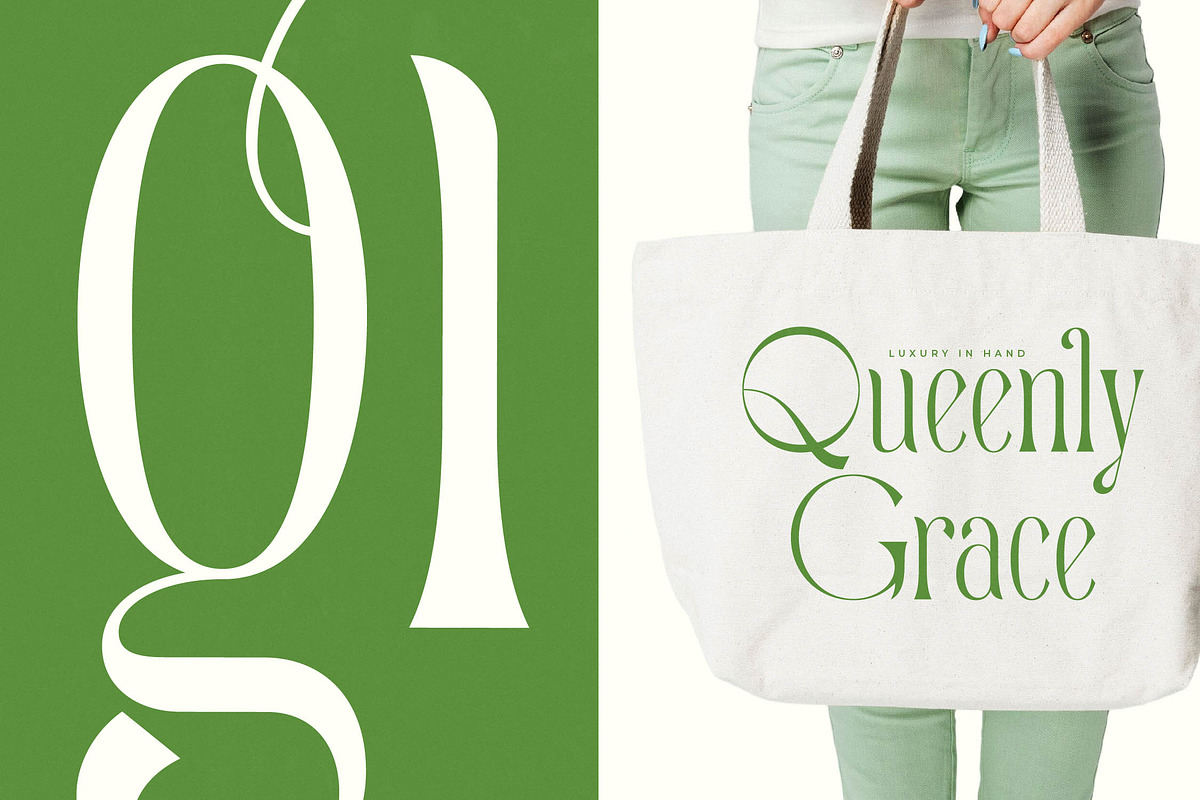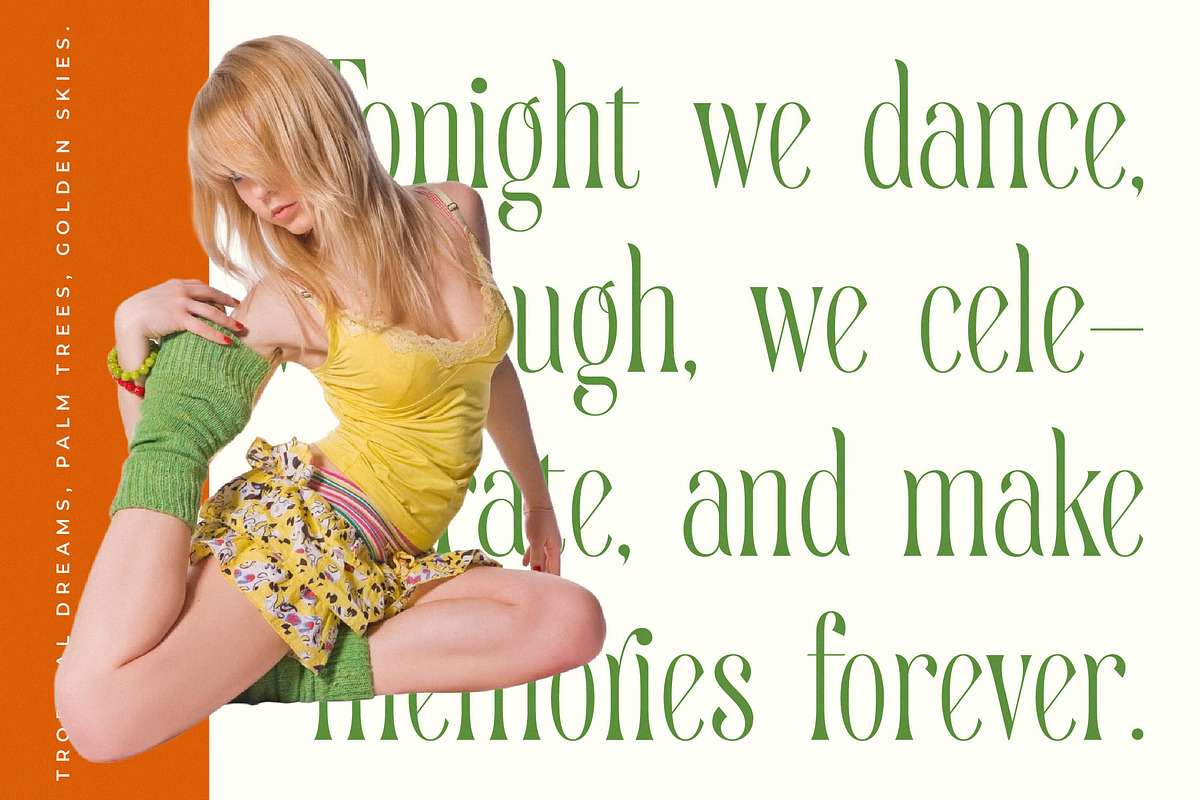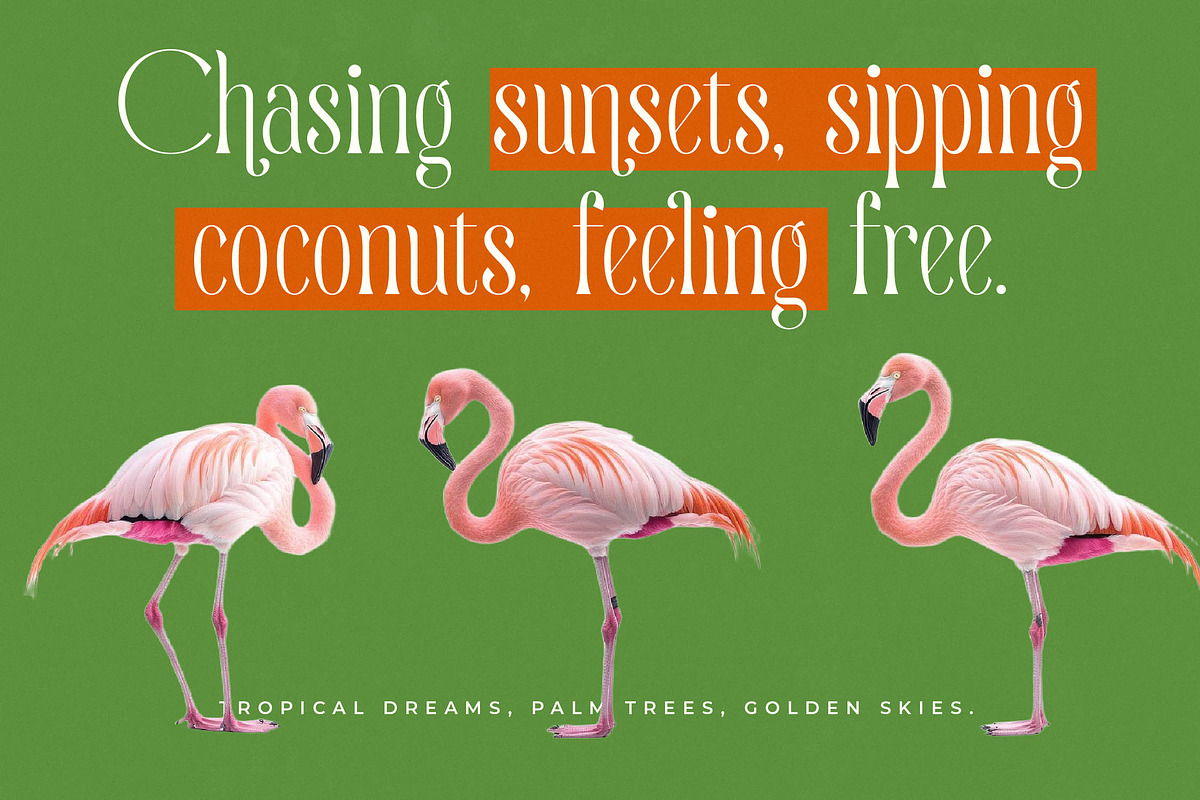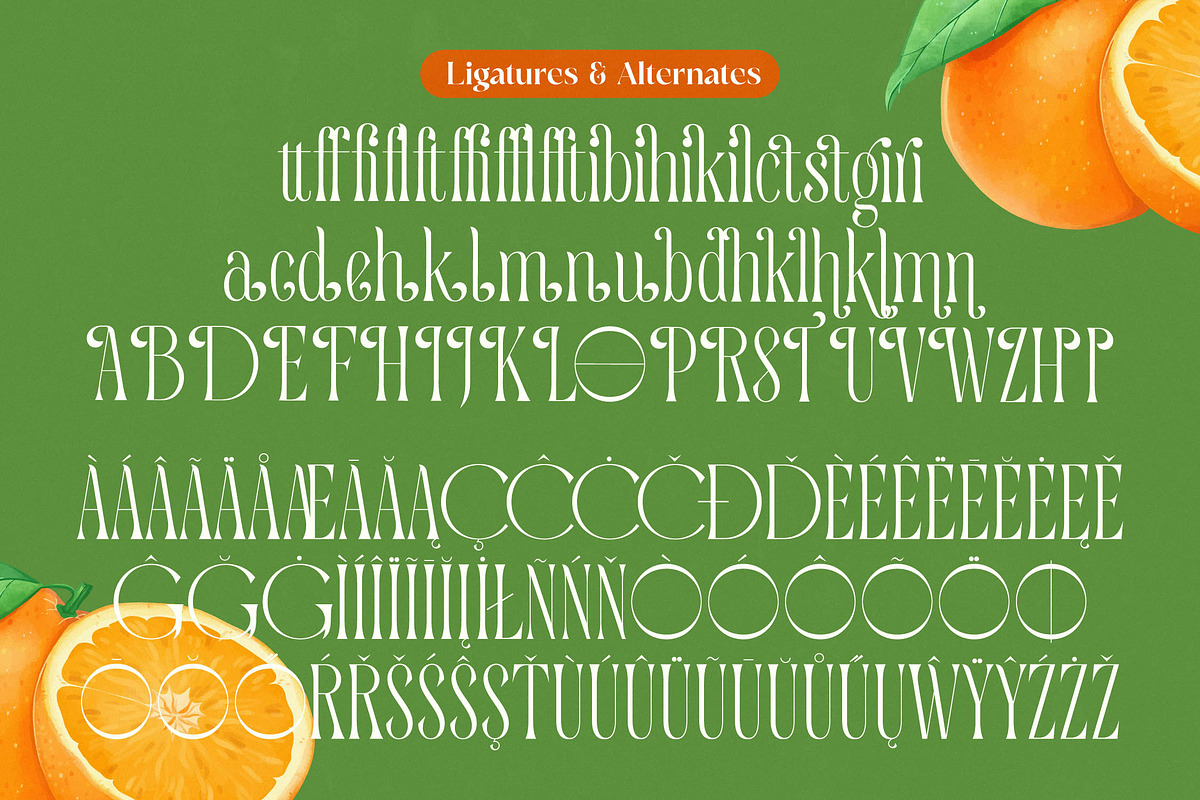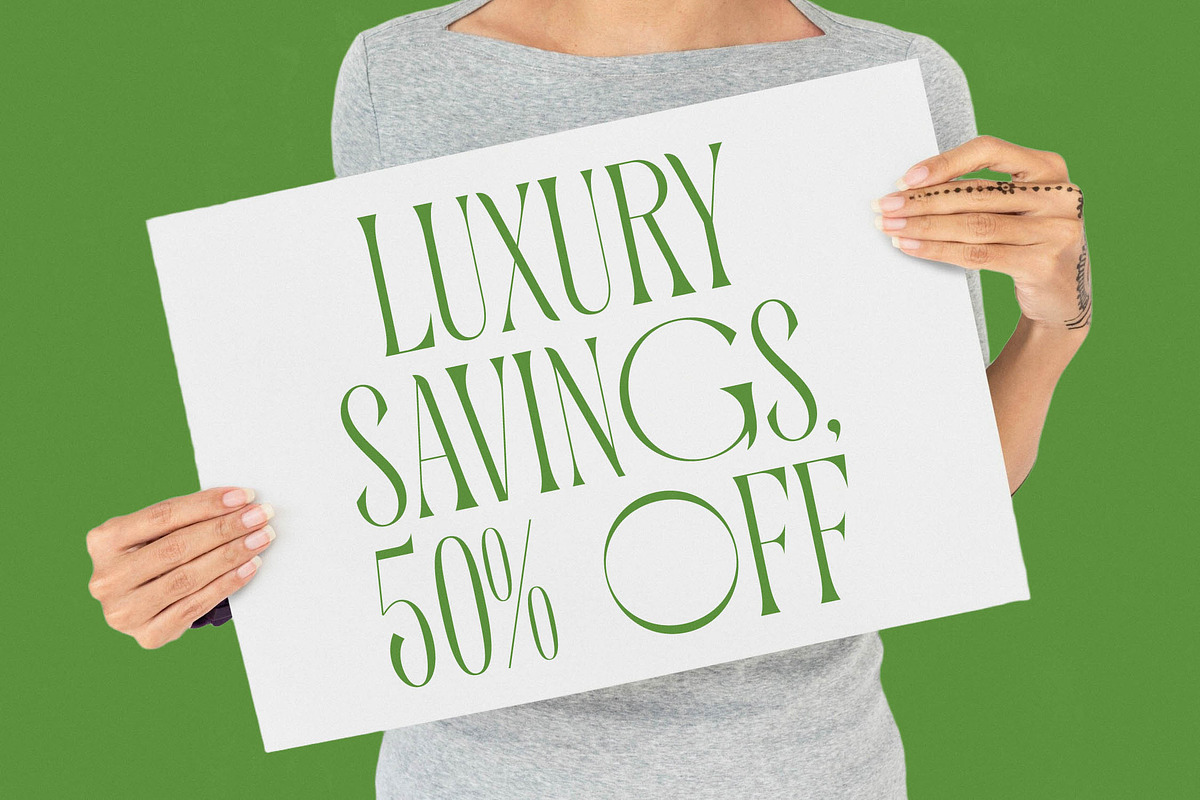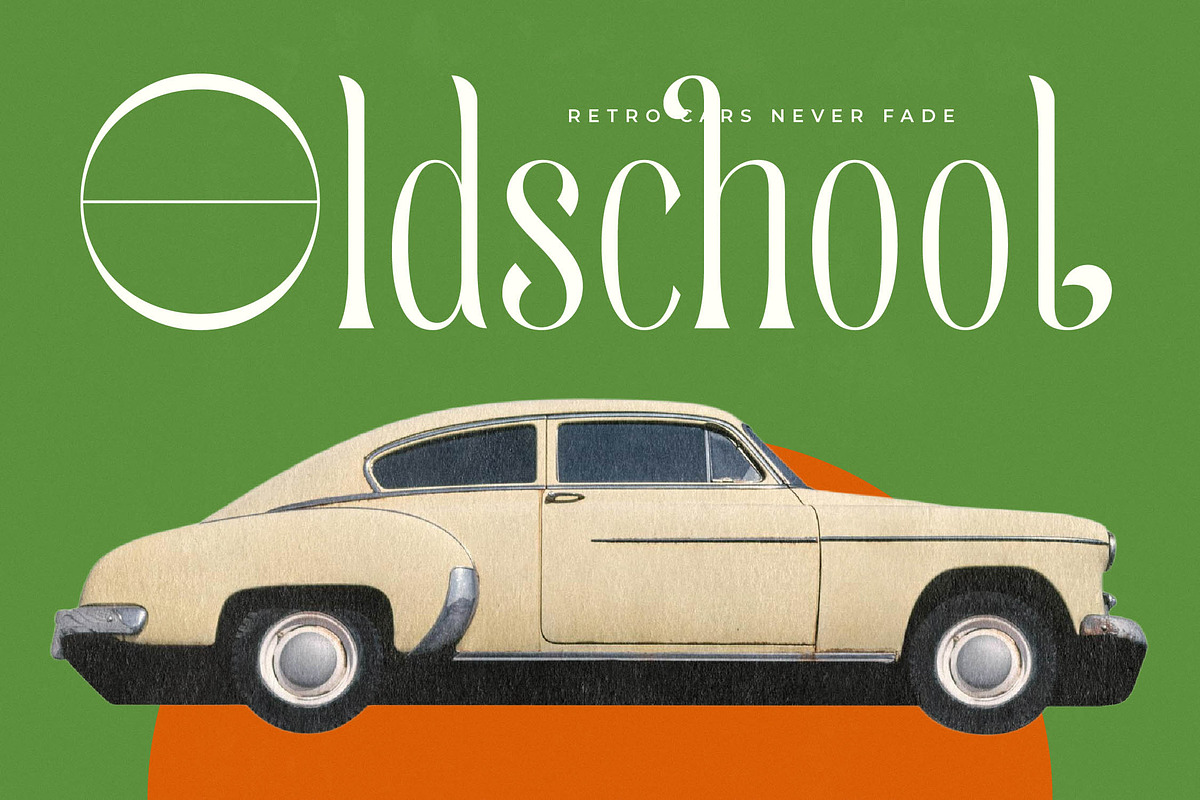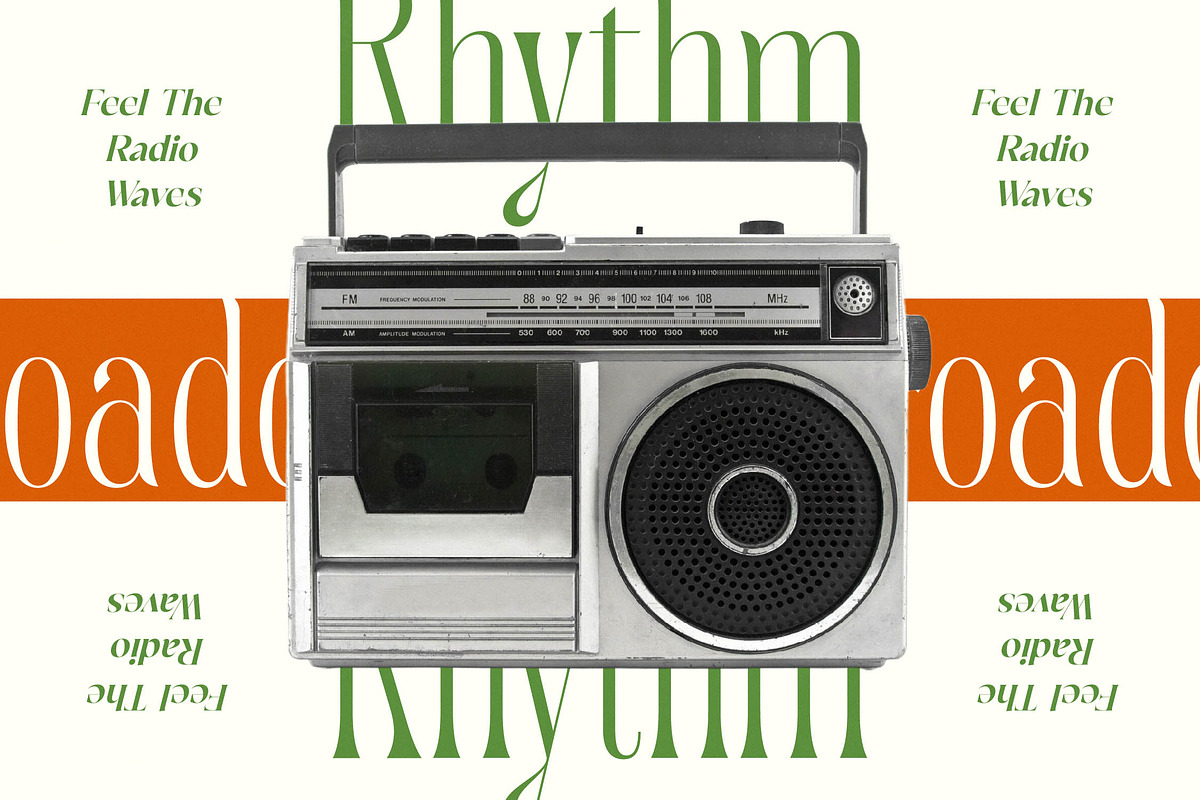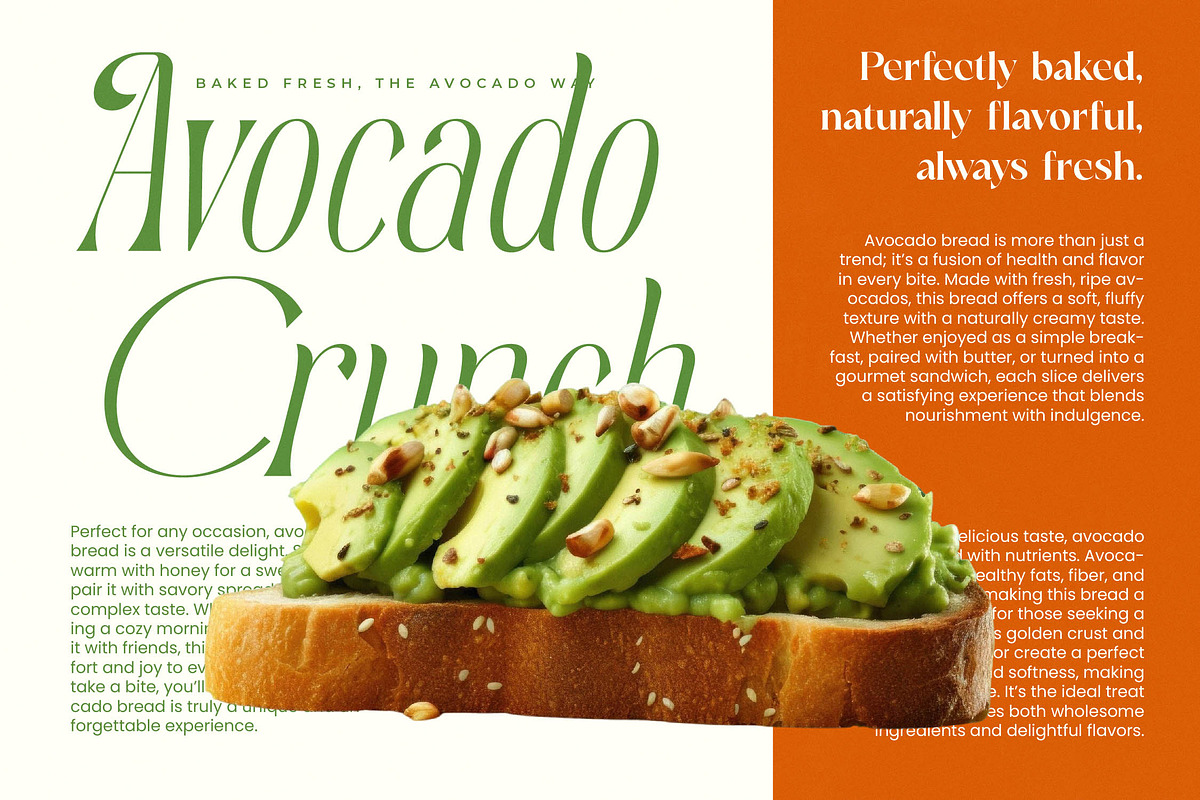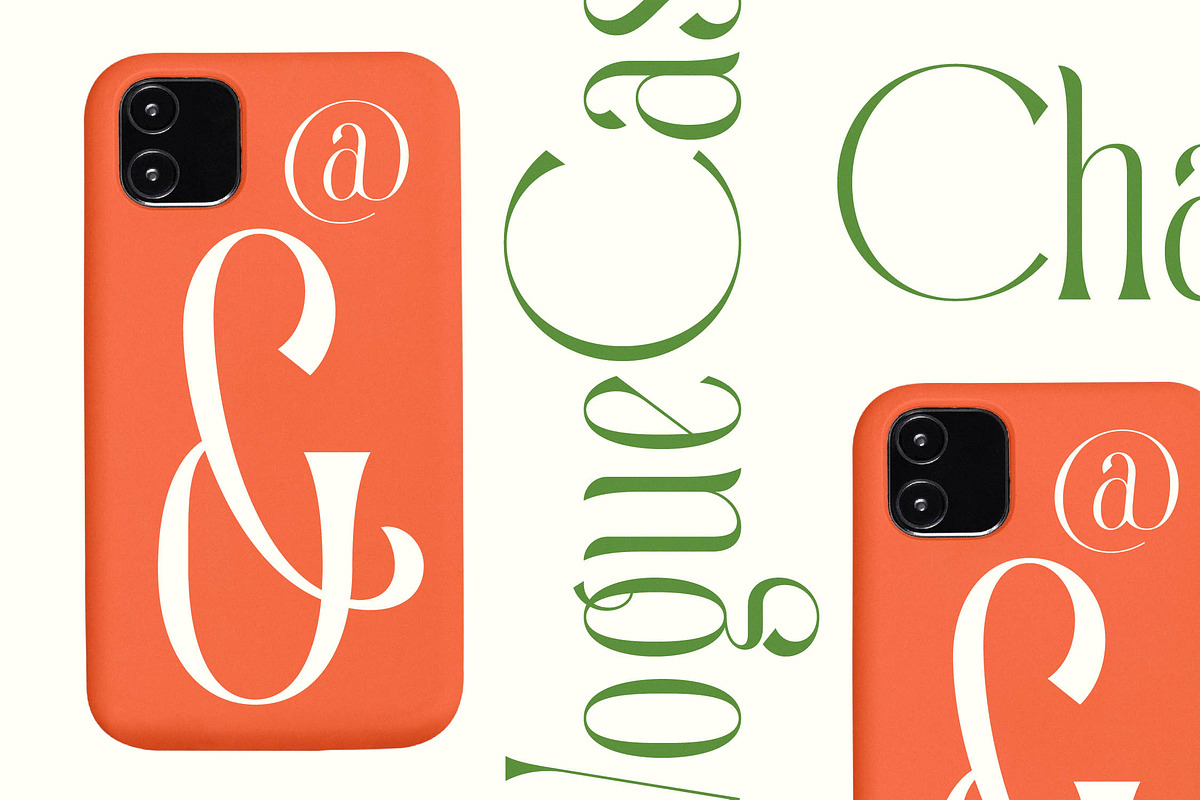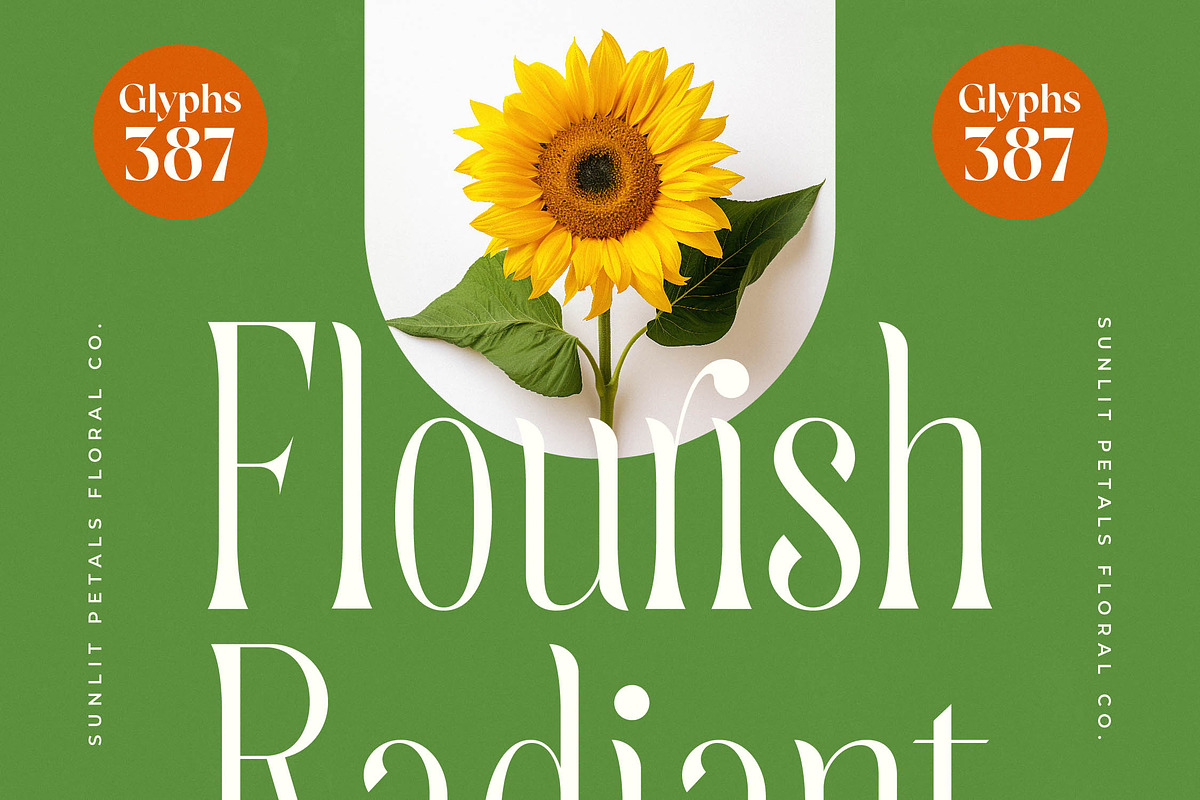
Quiselle Elegant Display Serif
Quiselle is an exquisite display font that brings a breath of fresh air to contemporary design, offering a perfect balance of sophistication and organic charm.
Inspired by the crisp aesthetics of high-end editorial layouts and the fluid lines found in nature, this typeface tells a story of refined beauty and artistic precision.
This modern serif display offers a luxury typography experience with its stunning high-contrast serif details and unique editorial font presence, ensuring every project leaves a lasting branding impact.
By tapping into the current modern serif trend, this typeface leads the pack of editorial display fonts by providing character-driven typography that remains both timeless and avant-garde.
It is the ideal choice for high-end logo design, fashion branding, and complex editorial layouts, while also shining in luxury packaging, wedding invitations, and fashion magazine spreads.
With a comprehensive library of 387 glyphs, it includes 16 ligatures and 41 alternates alongside full multilingual support and international characters for total creative freedom.
- Ligature 16 Alternate 41